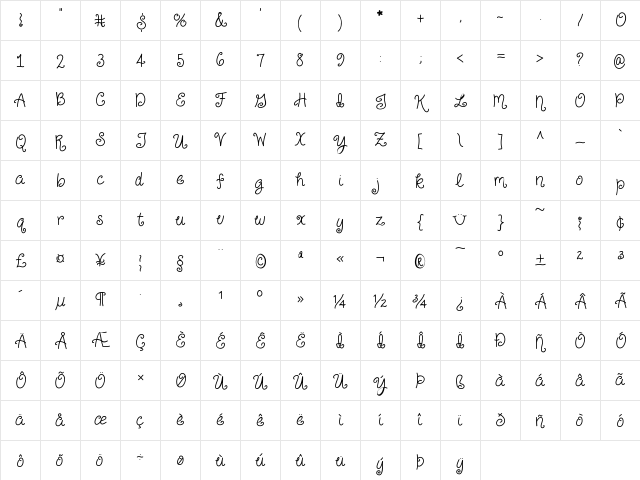
JustForGiggles Medium Free Font
JustForGiggles Medium
Designer: Vanessa Bays
Complete JustForGiggles Medium glyph index. Displaying only characters natively supported by JustForGiggles Medium font.
Design Context for JustForGiggles
JustForGiggles is a composed and adaptable typeface that performs quietly and consistently across a wide range of design contexts.